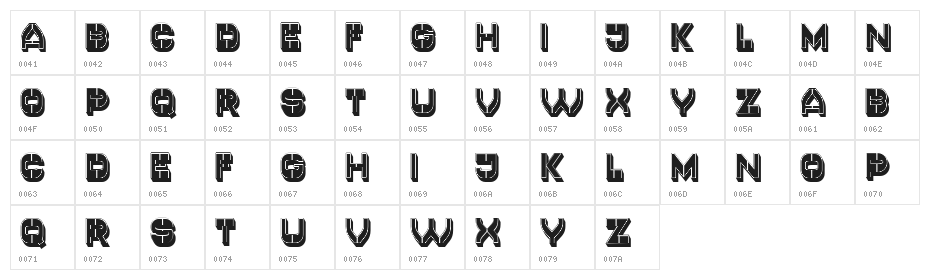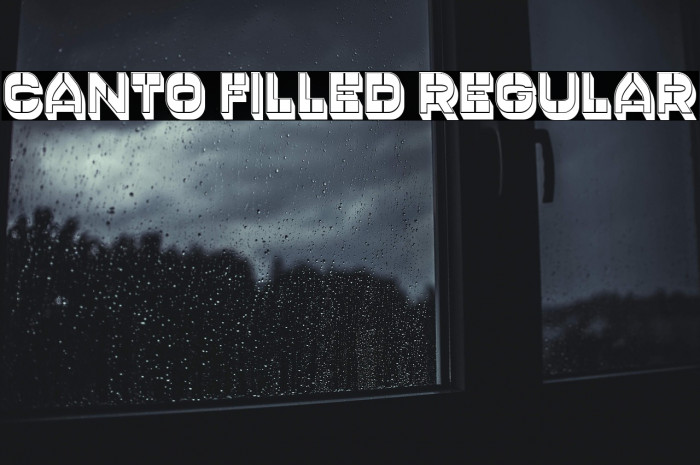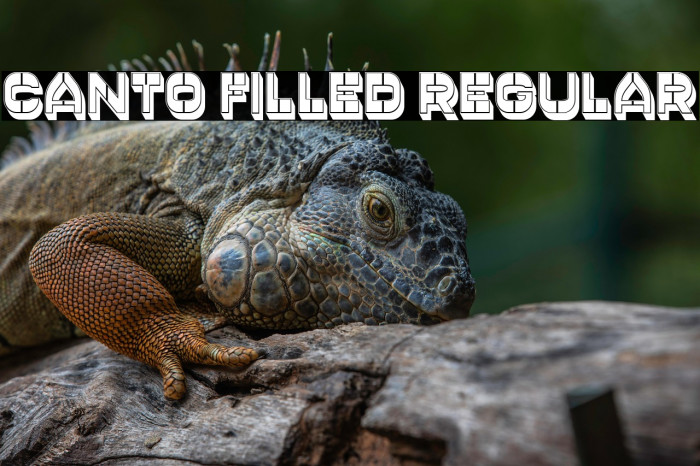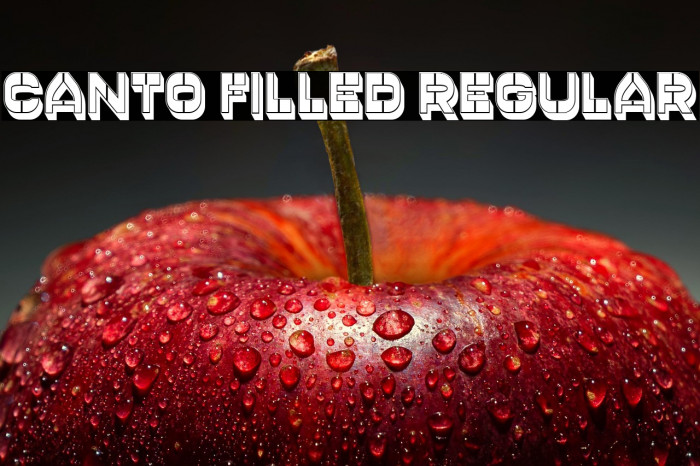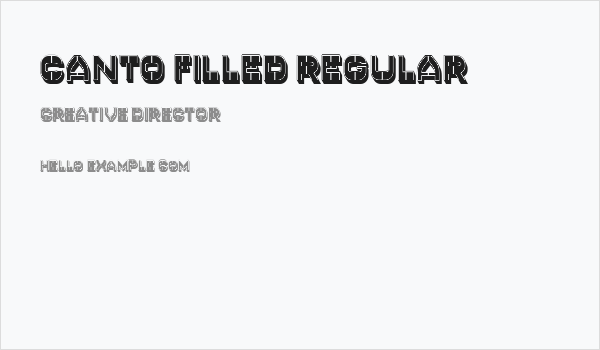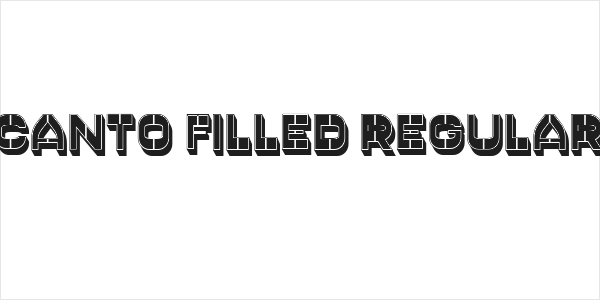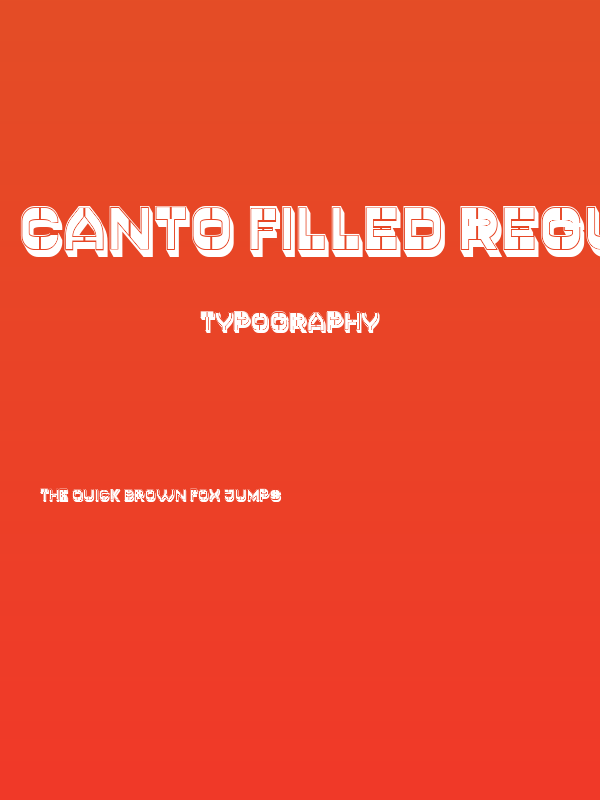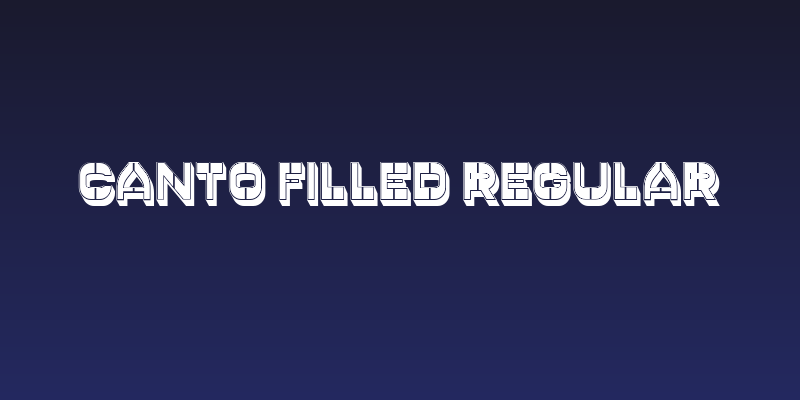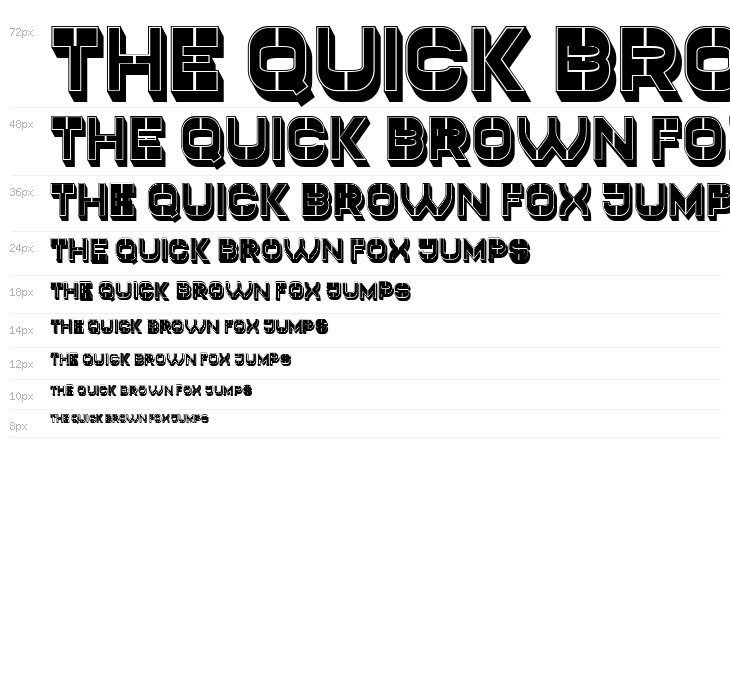
Canto Filled Regular Font
Canto Filled Regular Description
This font features a bold, geometric design with a filled, three-dimensional appearance. The characters are constructed with thick lines and sharp angles, creating a strong visual impact. The style is reminiscent of retro or vintage signage, with a modern twist. Each letter is distinct, with a consistent width and height, contributing to a uniform and cohesive look. The font's filled nature adds depth and dimension, making it stand out on any medium. Its boldness and unique design make it suitable for eye-catching displays.
| Proposed Projects | Ideal for posters, logos, headlines, and any project requiring a bold, standout typeface. |